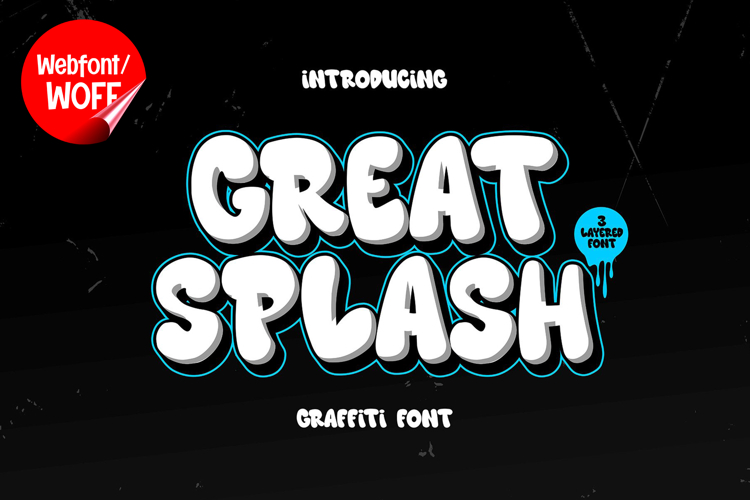
Great Splash | 3D Layered Graffiti Webfont for Urban Impact
Great Splash is a 3D layered graffiti webfont designed to bring explosive street energy and bold visual depth into modern website design. Inspired by graffiti murals, spray paint splashes, and layered urban lettering, this font features dynamic shapes combined with dimensional effects that create a strong and expressive typographic identity. It is an excellent choice for projects that aim to deliver a vibrant, edgy, and highly engaging visual experience.
Great Splash includes a complete set of uppercase characters designed with bold graffiti-inspired forms enhanced by 3D layered construction. The letterforms feature energetic curves and splash-like details that create a sense of movement and excitement. These characteristics make it ideal for headlines, banners, hero sections, and featured content where strong visual impact is needed.
In addition to letters, the font includes numbers and punctuation, allowing flexible usage across various parts of a website. It works well for promotional campaigns, music platforms, gaming websites, branding elements, and creative portfolios. Each character maintains a consistent layered graffiti style, ensuring a cohesive and unified visual identity throughout the design.
With multilingual support, Great Splash includes a wide range of accented characters, making it suitable for international websites and global audiences. This allows content to be displayed clearly across different languages while preserving the bold and urban aesthetic.
The 3D layered graffiti style of Great Splash makes it especially suitable for streetwear brands, urban-themed websites, entertainment platforms, and digital campaigns. Its dimensional and energetic design adds personality and intensity, helping websites stand out in visually competitive environments. The layered structure enhances depth, while the splash-inspired forms create a lively and artistic feel.
Despite its expressive and decorative appearance, Great Splash is designed with readability in mind. The spacing and proportions are carefully balanced to ensure clarity, particularly in display sizes. This makes it effective for impactful headings and short content elements where both style and usability are important.
Great Splash is a webfont that combines graffiti aesthetics with layered depth and modern digital performance. Its bold forms, splash-inspired details, and urban character create a distinctive typographic presence that enhances website design. For projects that require a strong, creative, and visually engaging graffiti font, Great Splash offers a powerful and versatile solution.